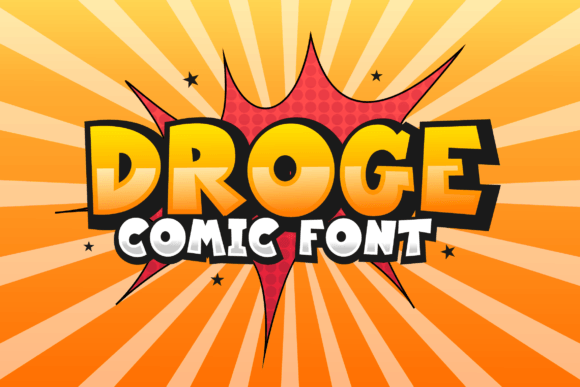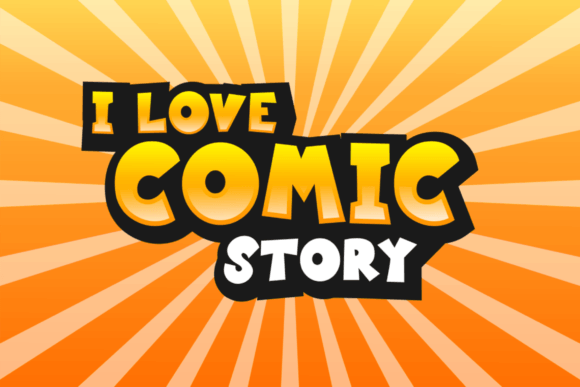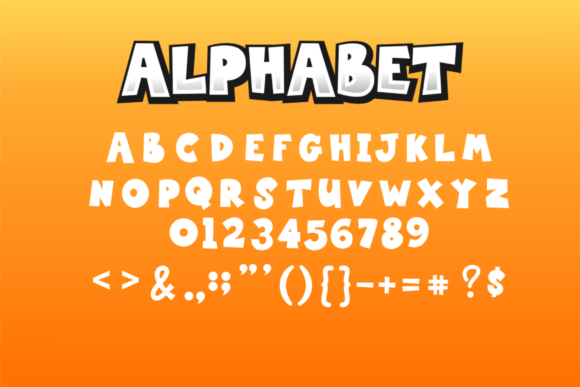
Droge Font: A Bold Display Font for Comics & Playful Designs
About the Droge Font
The wait is over! The incredible Droge Font is now available for your design toolkit. Droge is a cute and fun display font with some fat strokes. Is a great way to add an adorable twist to any design project, be it a logo, stationery, poster, or something else.
Droge’s playful personality makes it ideal for headlines, short taglines, and branding elements where a touch of whimsy is desired. It works particularly well in children’s book illustrations, playful packaging designs, and fun social media graphics. However, its heavy stroke weight makes it unsuitable for body text or UI elements; readability suffers in smaller sizes or extended use.
Consider pairing Droge with a clean sans-serif like Open Sans for a balanced contrast, or a classic serif such as Garamond for a more sophisticated feel. A script font with a similar weight could also work, creating a cohesive yet varied look.
Droge’s overall aesthetic is best described as friendly and approachable, yet bold enough to capture attention. Its charm lies in its unconventional, slightly irregular character forms, making it perfect for brands targeting a young, energetic demographic or projects requiring a touch of handmade charm.
Droge Font Usage Examples
Droge Font Example